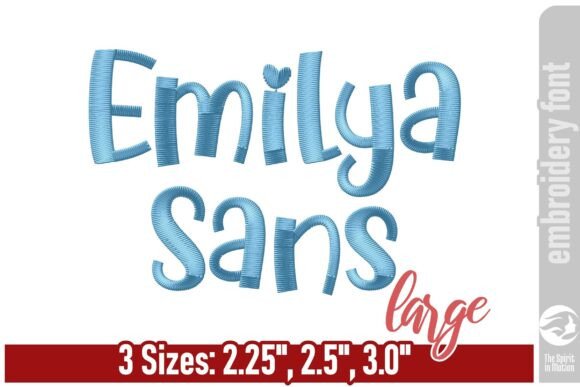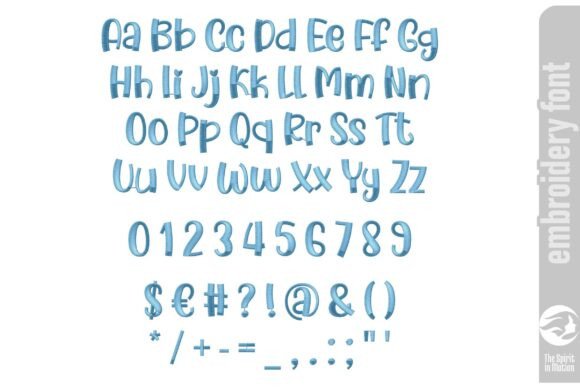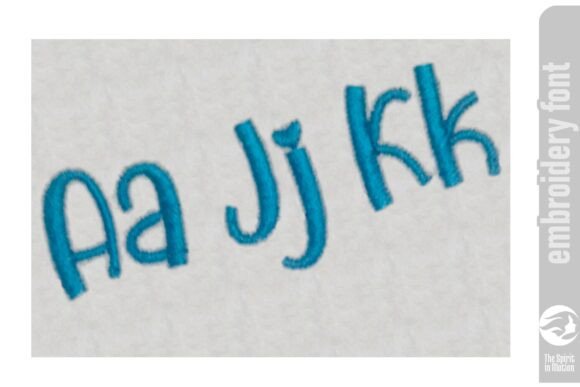
Emilya Sans Embroidery Font - Large
Emilya Sans Embroidery Font – Large
Add a touch of playful charm to your projects with this whimsical embroidery font! Designed with soft curves and a lighthearted feel, it’s perfect for personalizing baby bibs, blankets, and other sweet creations. Whether you’re stitching a name, a fun phrase, or a heartfelt message, this font brings joy and personality to every letter. Ideal for children’s gifts and nursery décor, it’s as delightful as the little ones it’s made for.